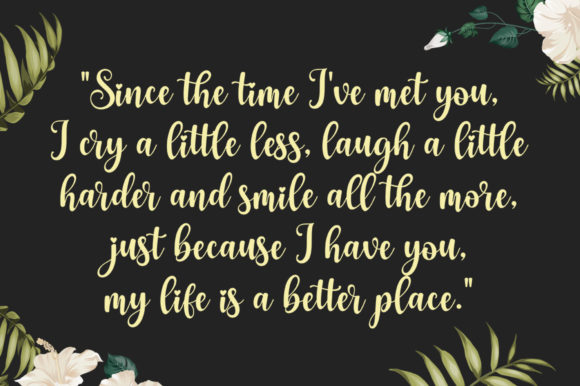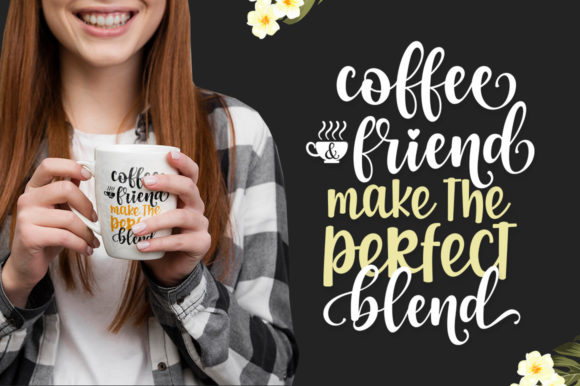
The Romantic Absolute Font
db-ku.com - Script & Handwritten -- The Romantic Absolute is a beautiful lettered and graceful duo font (sans serif and script). This font is PUA encoded which means you can access all of the glyphs and swashes with ease!